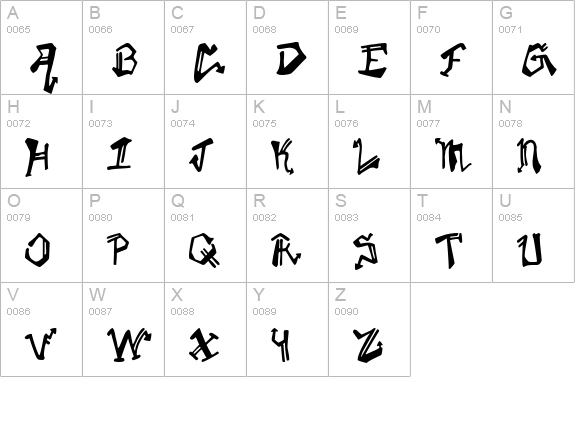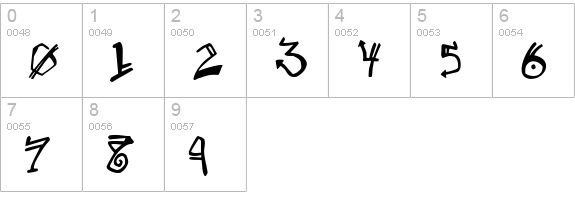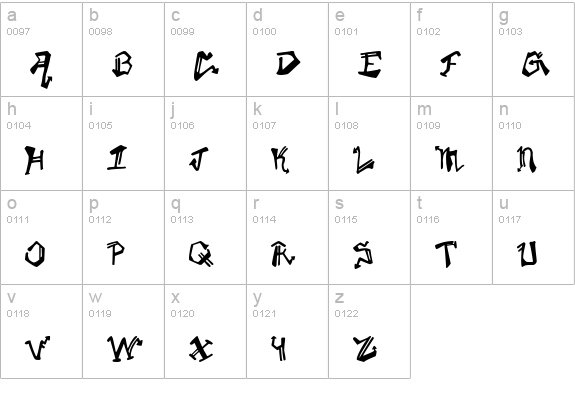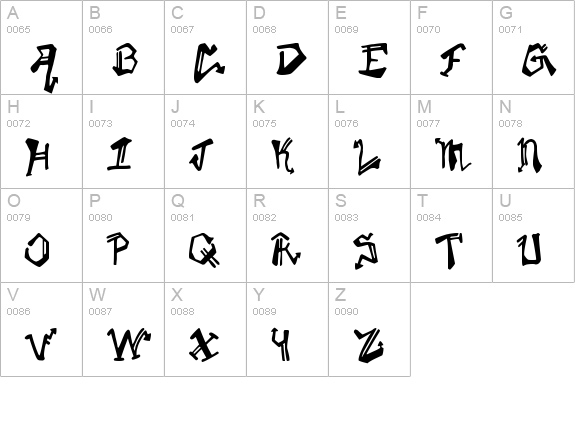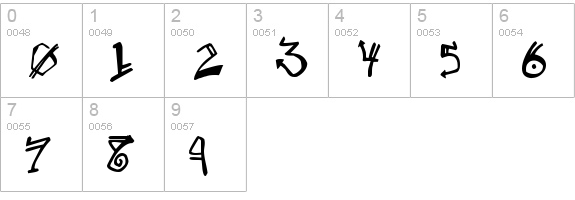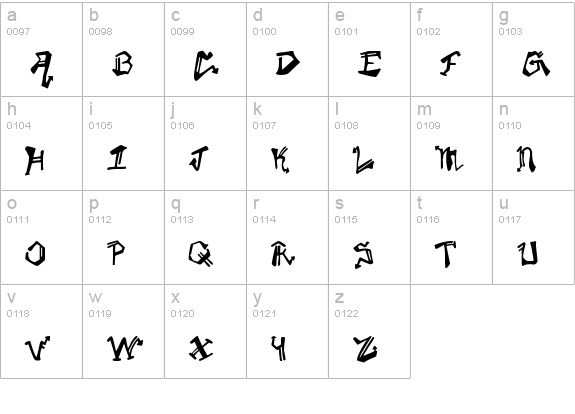
Krylon Gothic Font Details
Krylon Gothic font is a stunning display typeface that exudes a sense of elegance and sophistication. Its sharp angles and bold lines make it perfect for creating eye-catching headlines, logos, and branding materials. With its unique Gothic style, Krylon Gothic font adds a touch of mystery and drama to any design project. The best part? Krylon Gothic font is available for free download at FontsMarket.com. This means you can easily access this striking typeface and use it in your projects without any cost. Whether you're working on a website, poster, or packaging design, Krylon Gothic font will surely make a powerful statement and elevate your work to the next level. Don't miss out on this amazing opportunity to add a touch of Gothic flair to your designs with Krylon Gothic font - download it for free today!